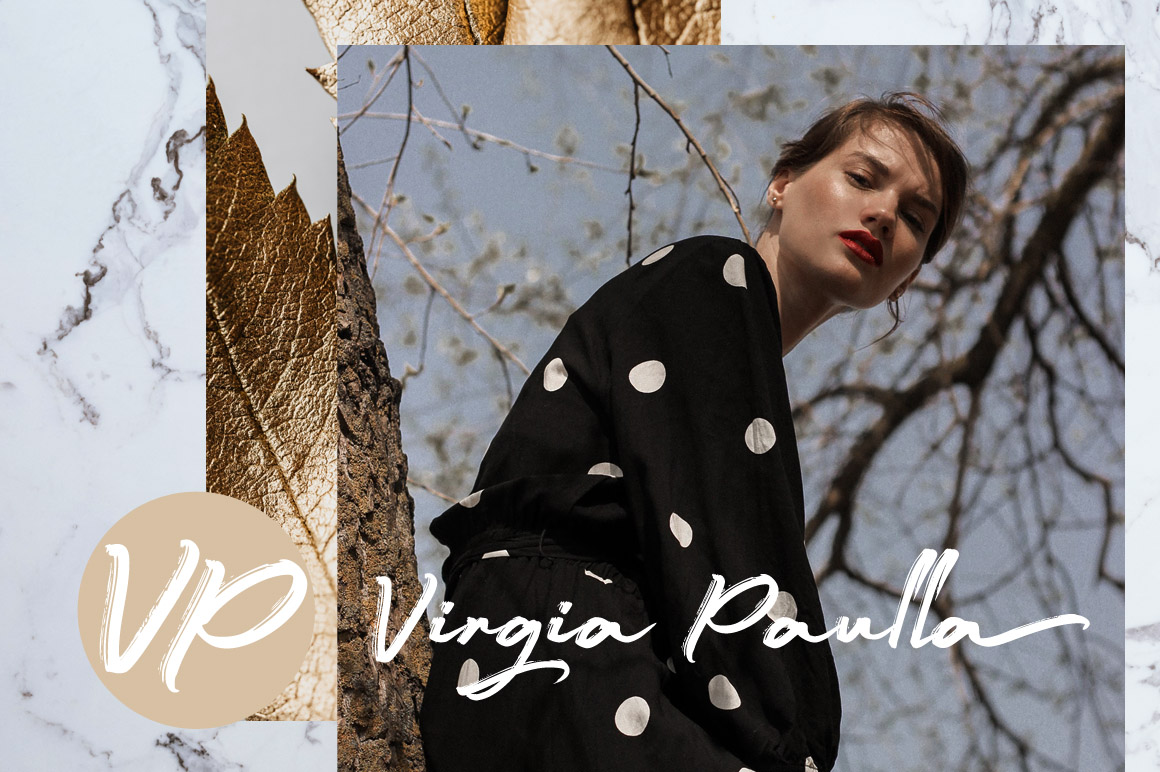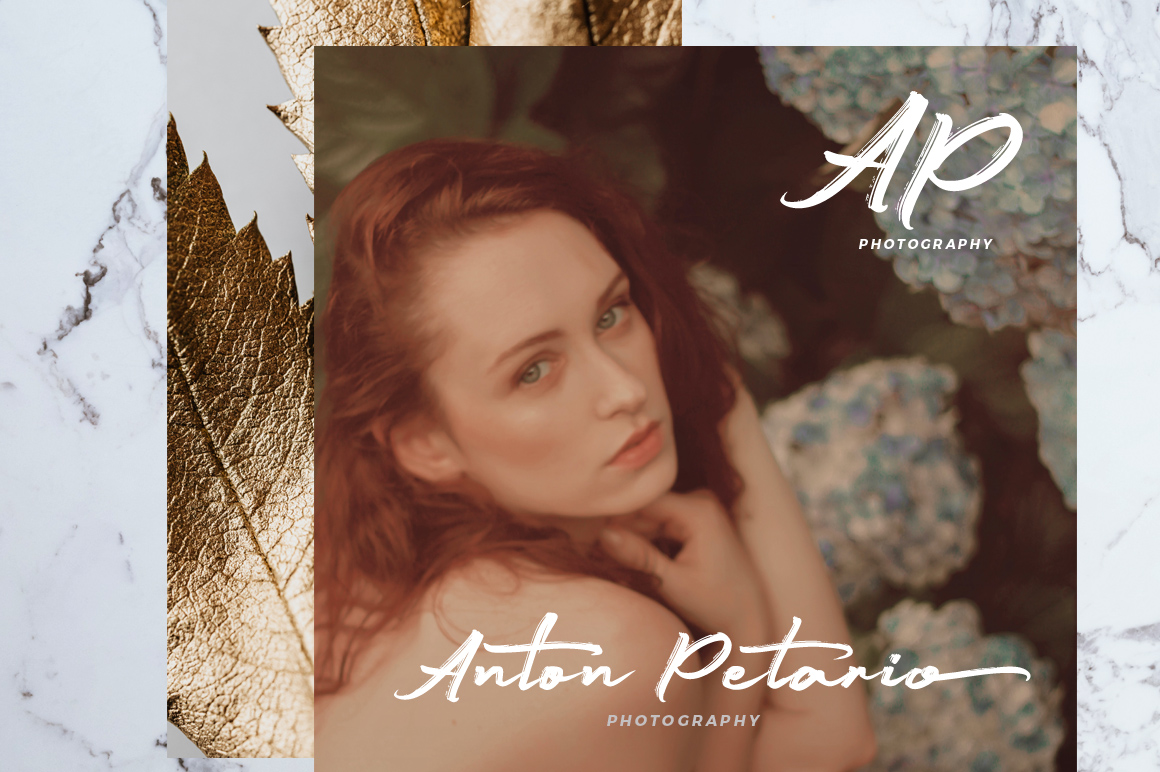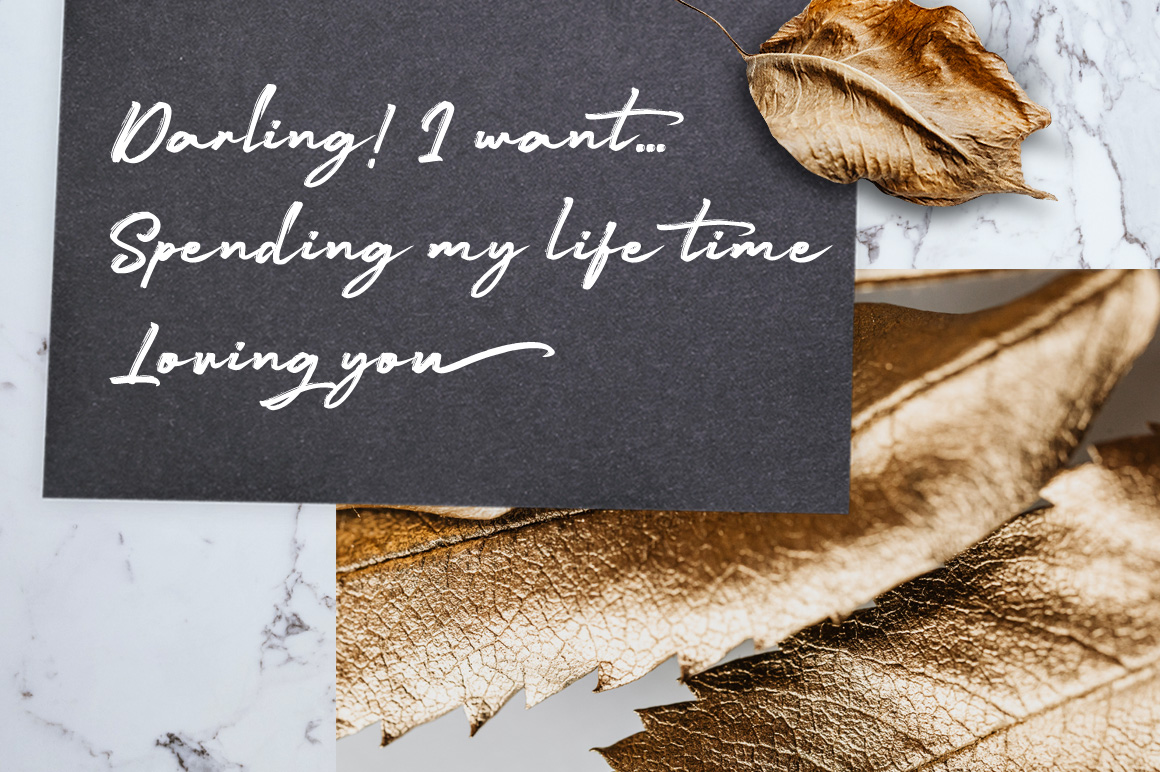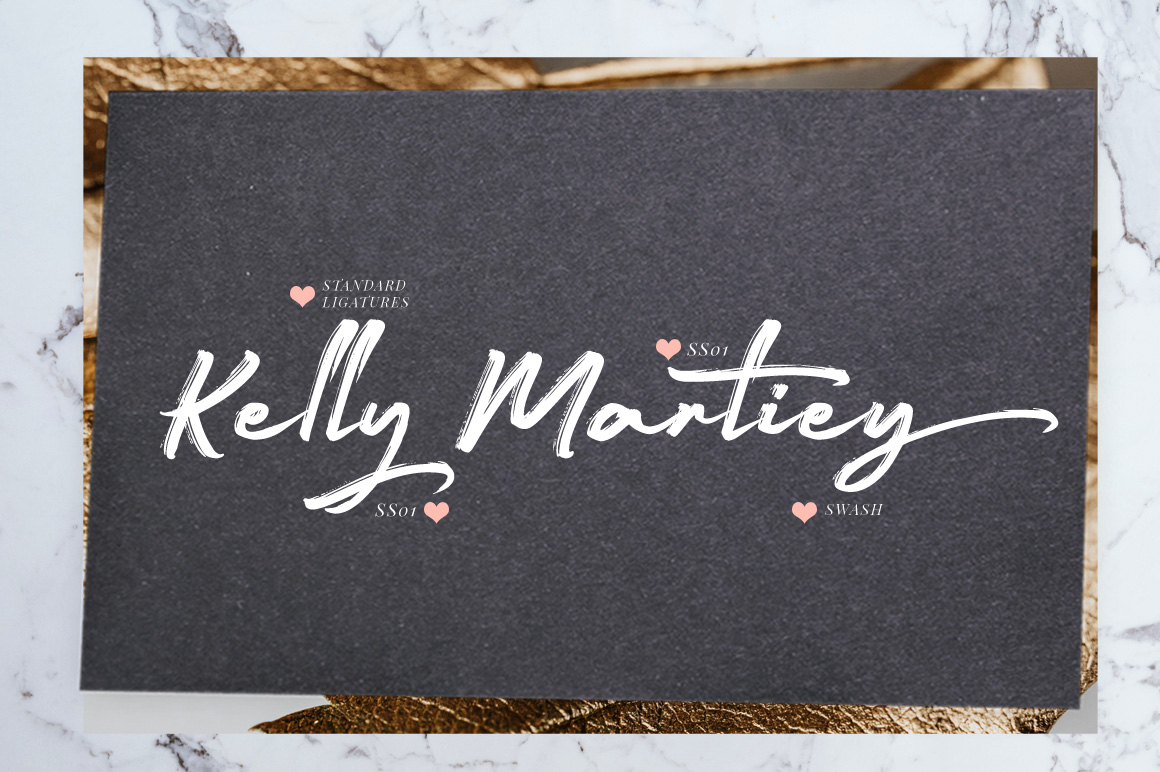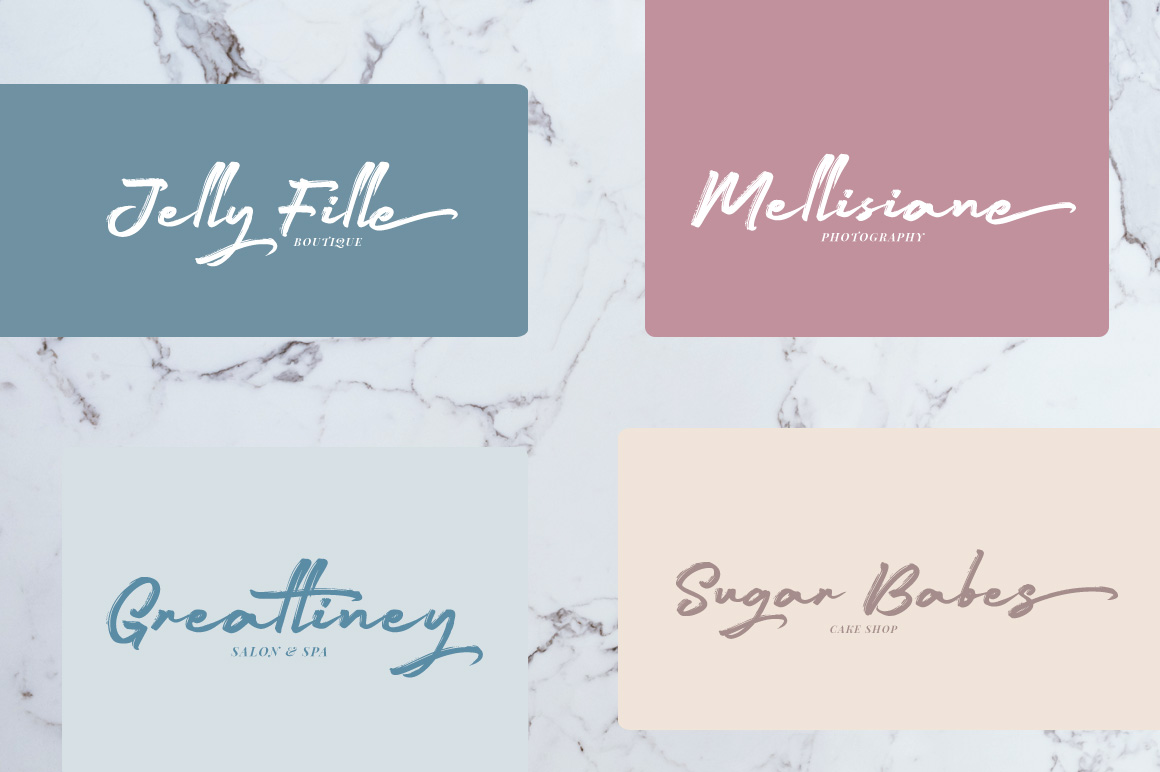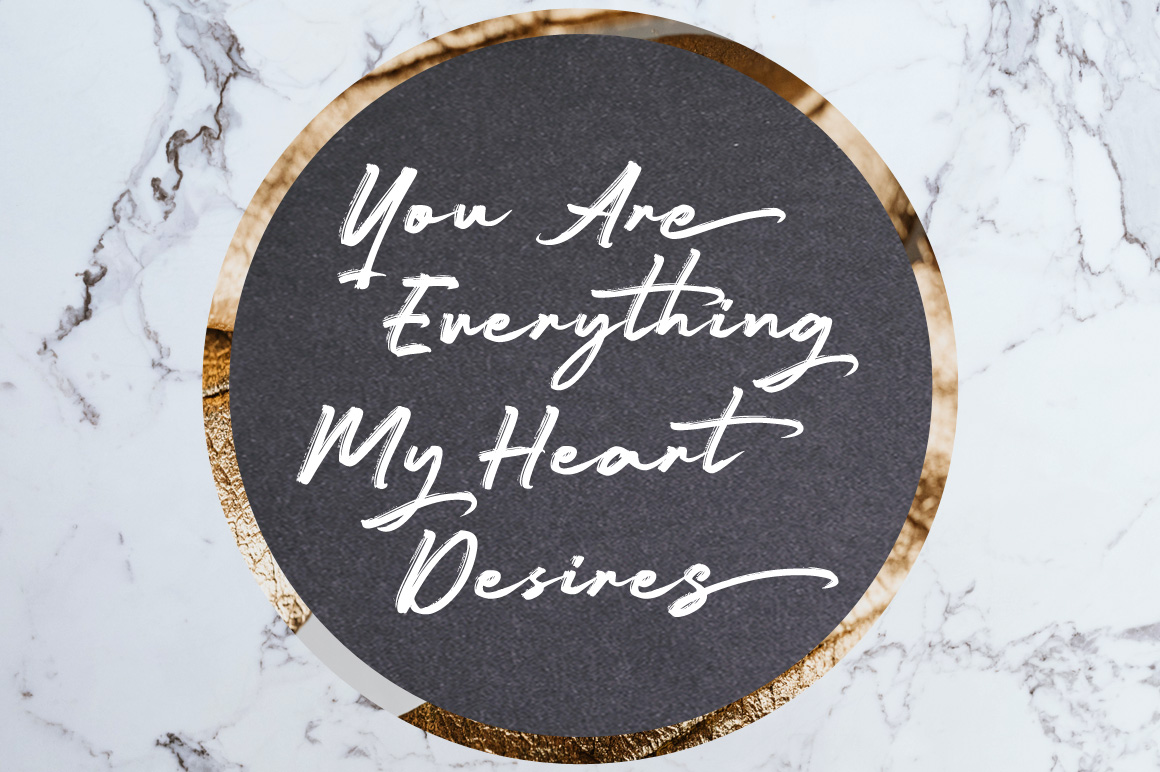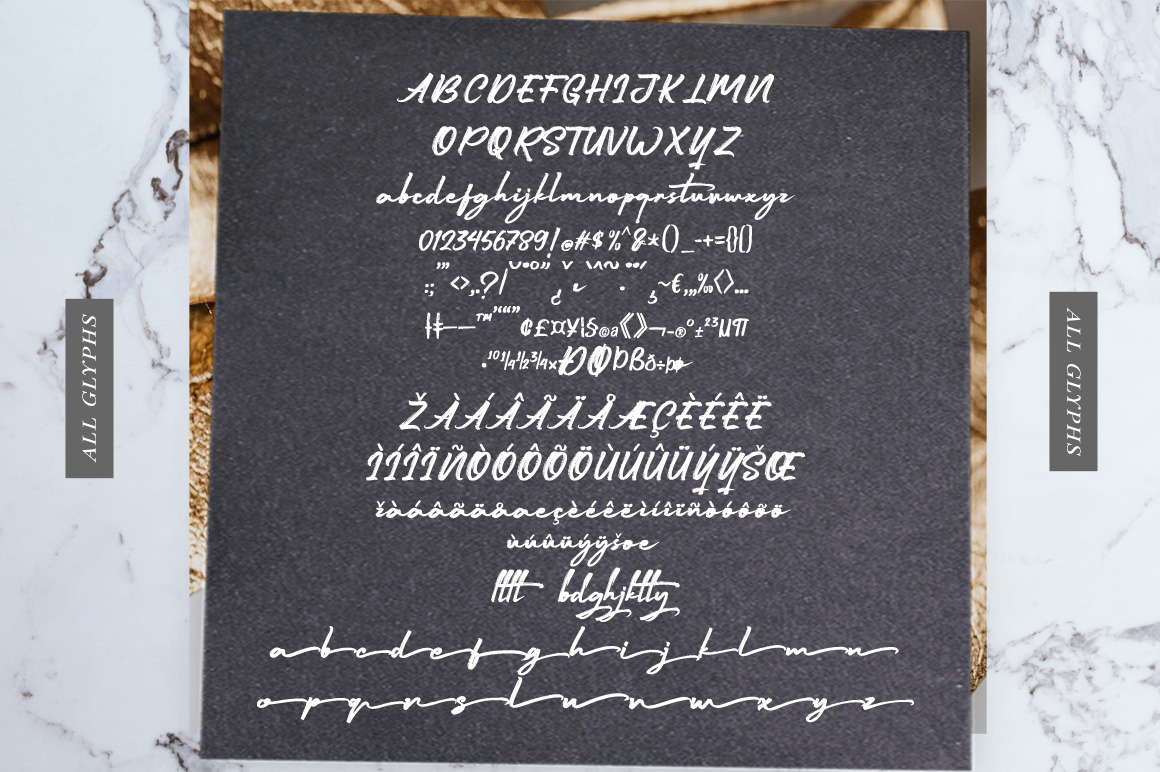
Marijose – Handwritten Font
Marijose is a script font with handlettering brush style, an inspired signature style with an OpenType feature included in the font. Suitable for design, element design, weddings, events, t-shirts, logos, badges, stickers, awesome work, etc…
– All Standard Characters, Symbols, Multilanguage, Ligatures, Stylistic Sets, and Swashes.
– Unique style fonts